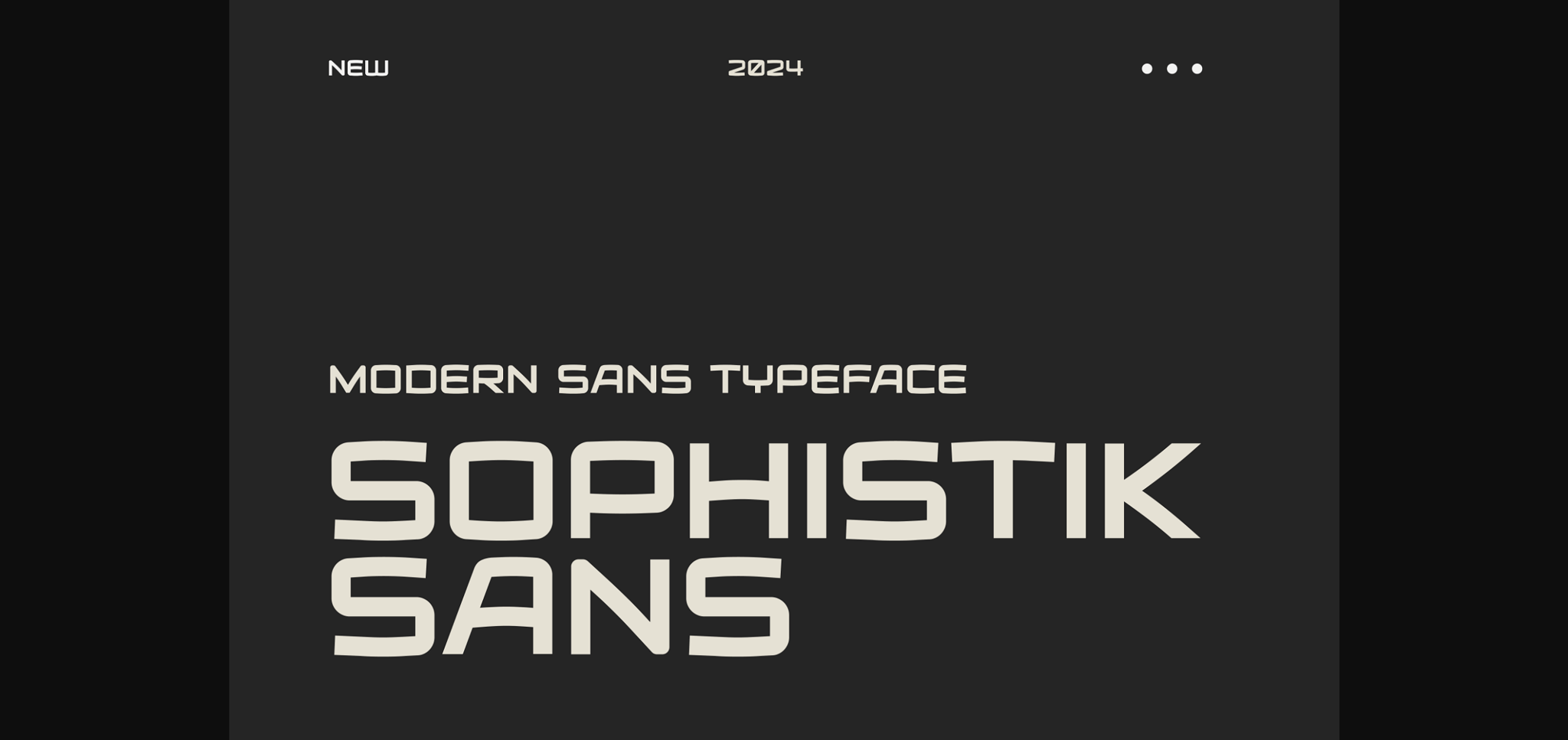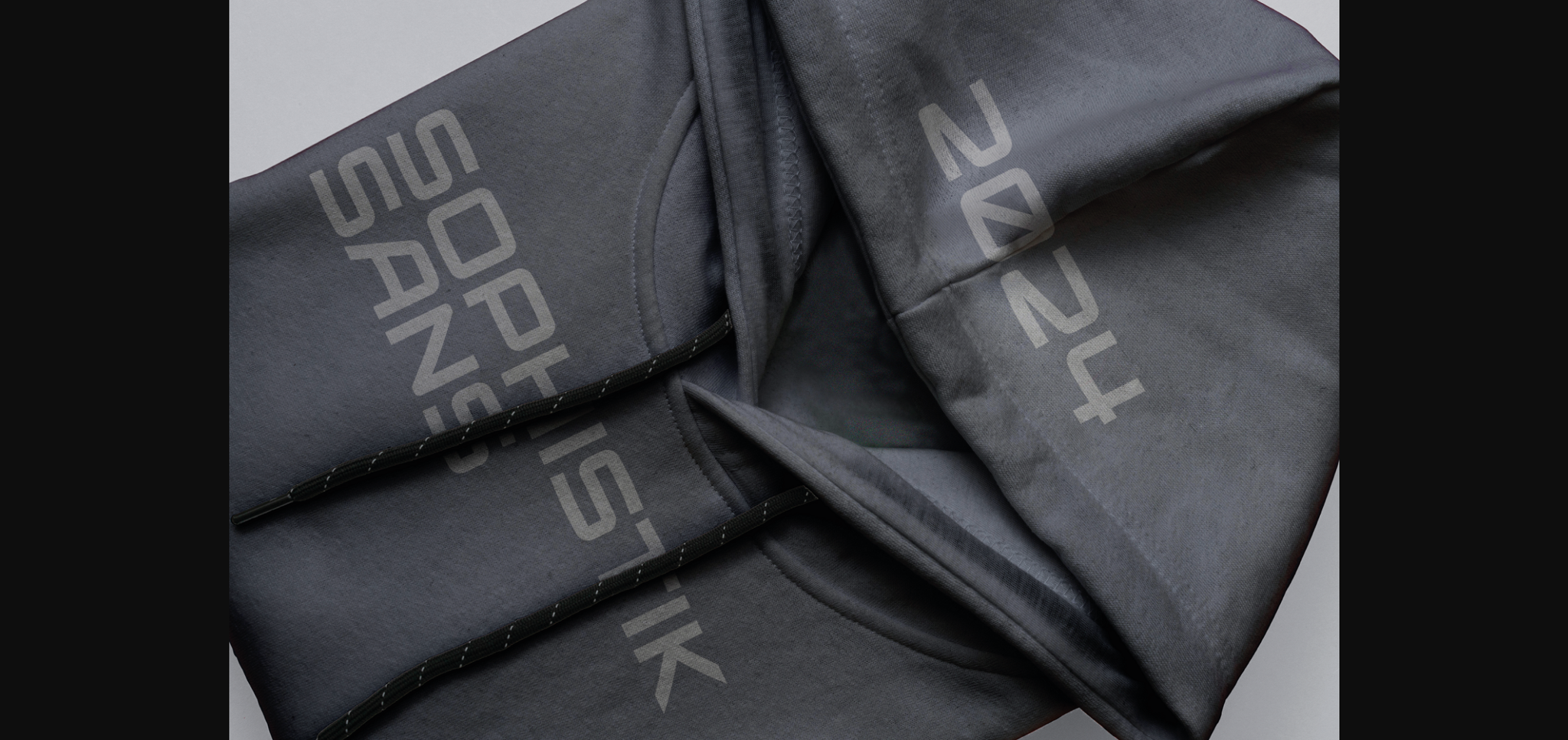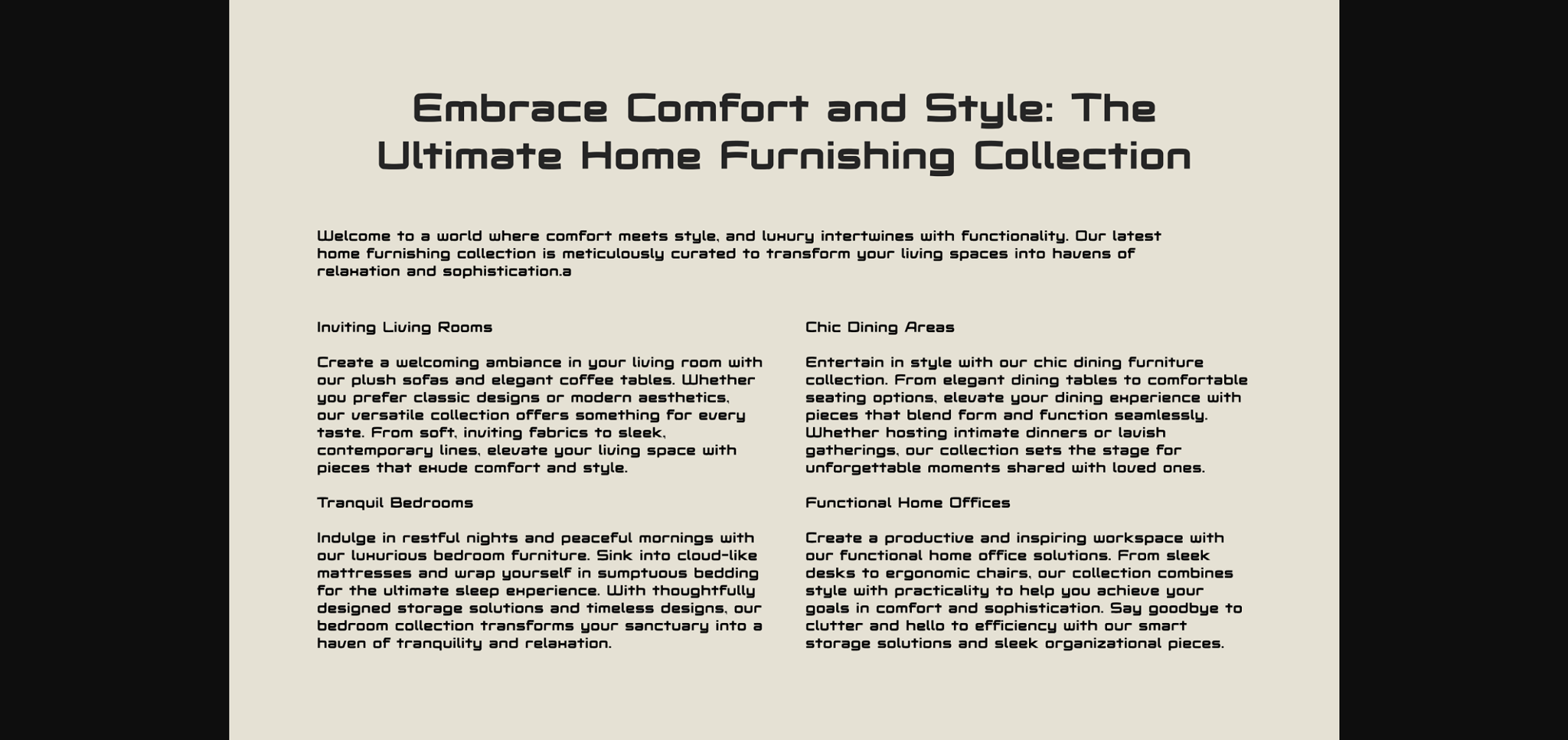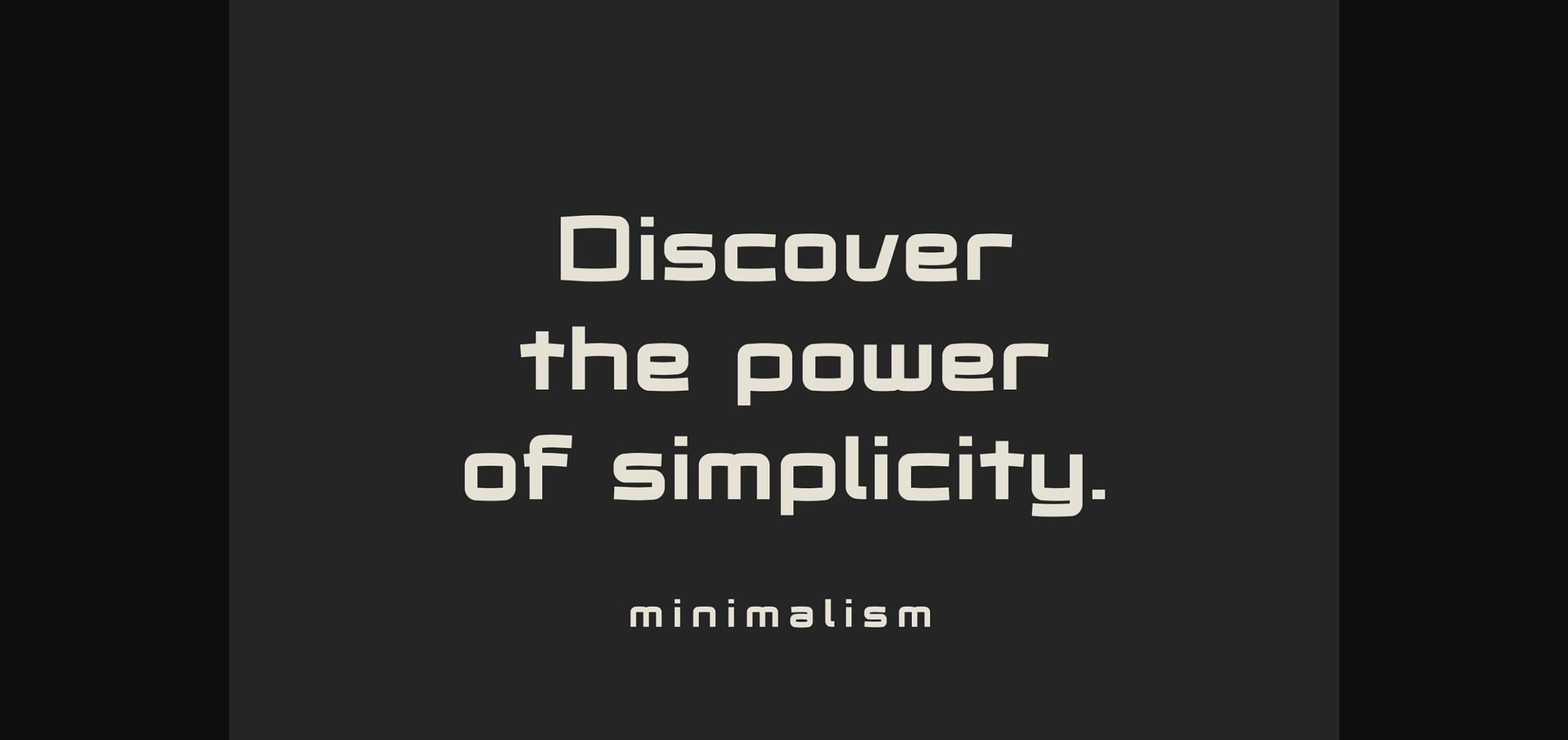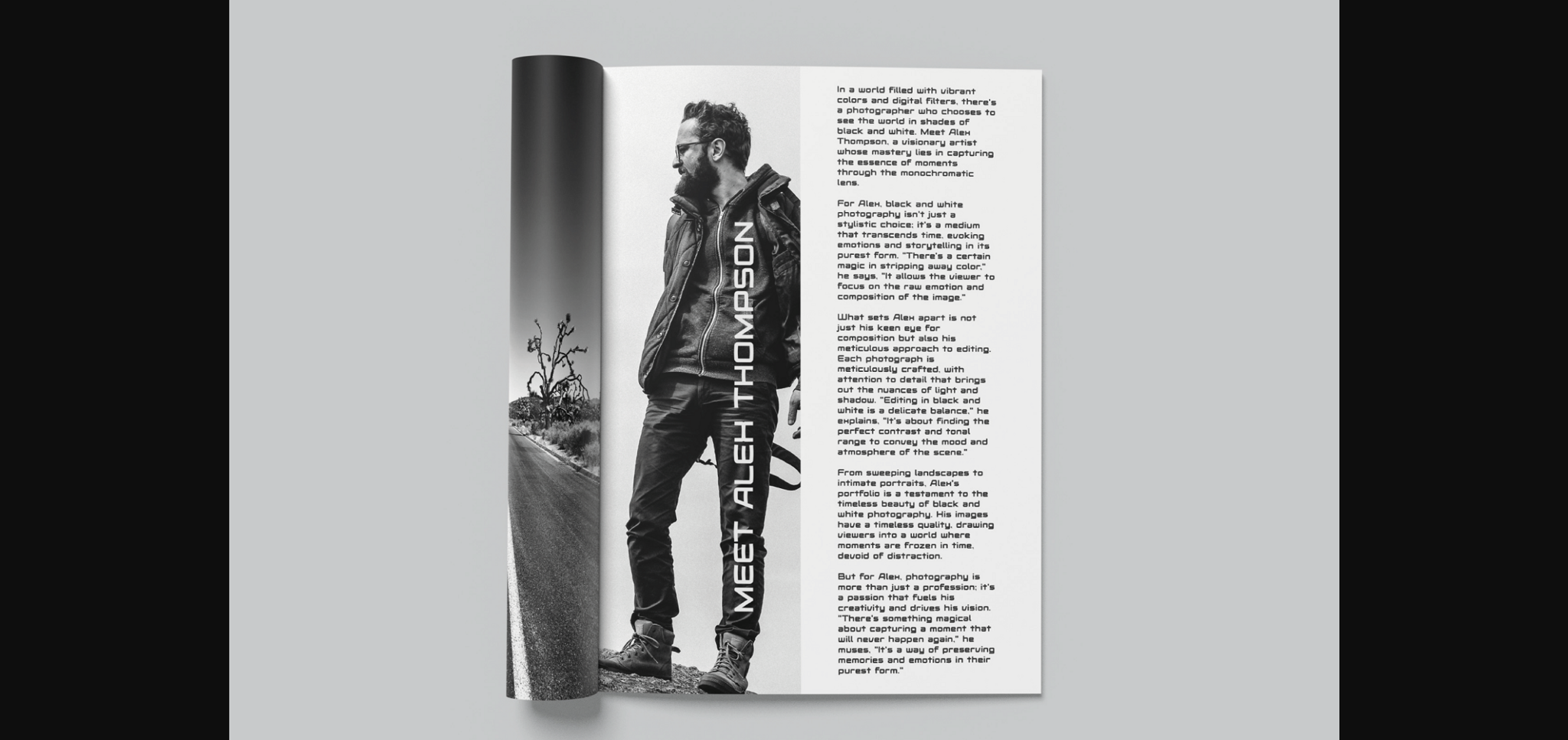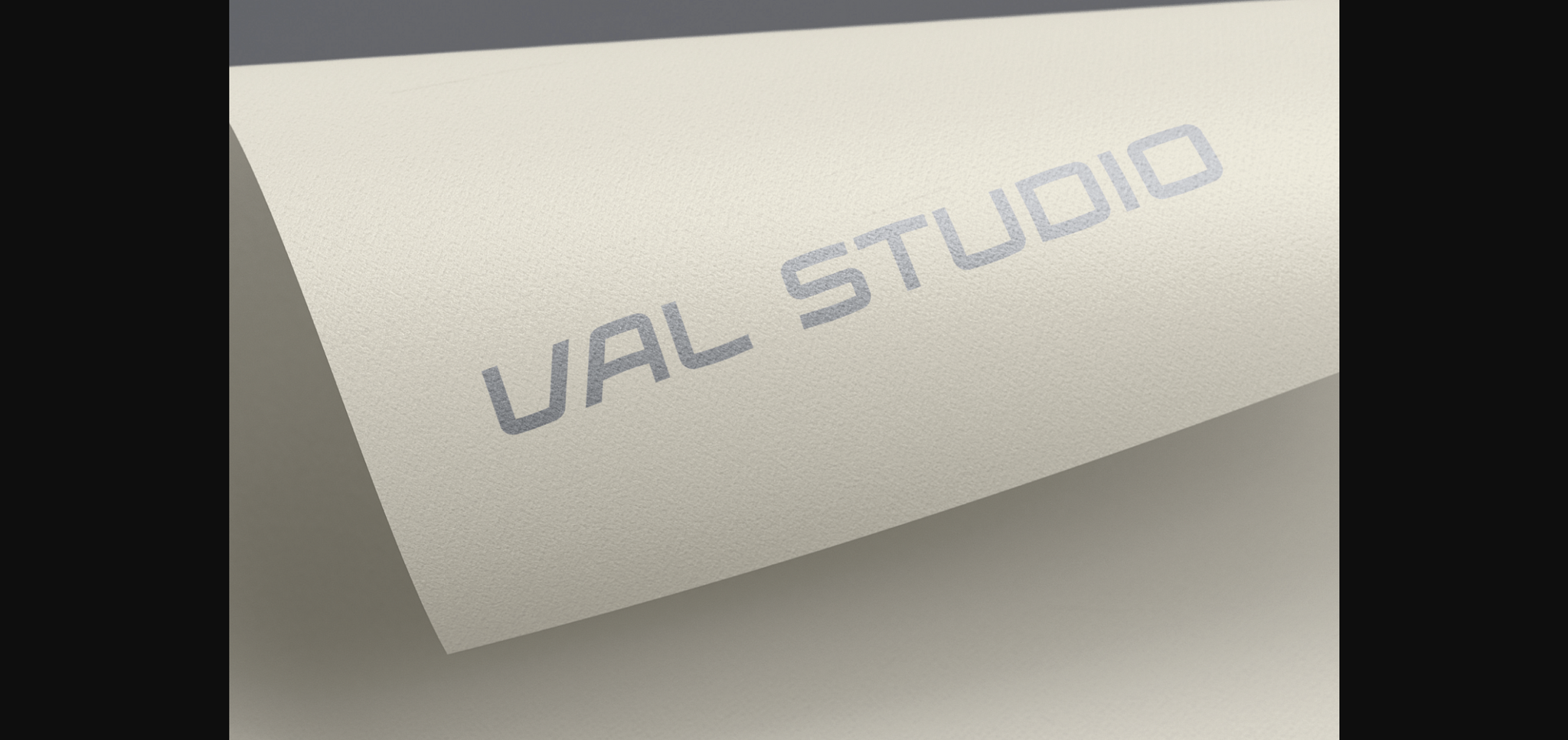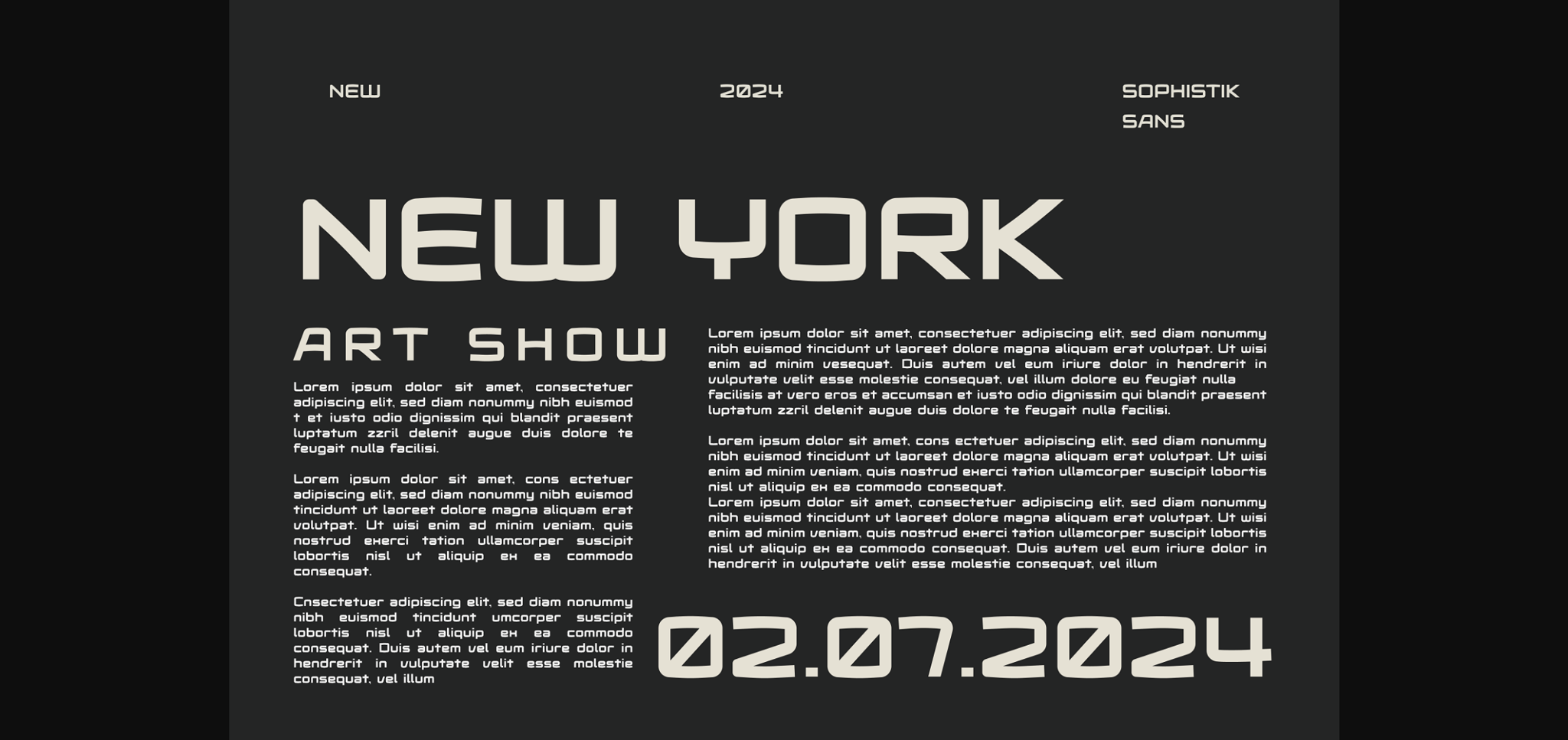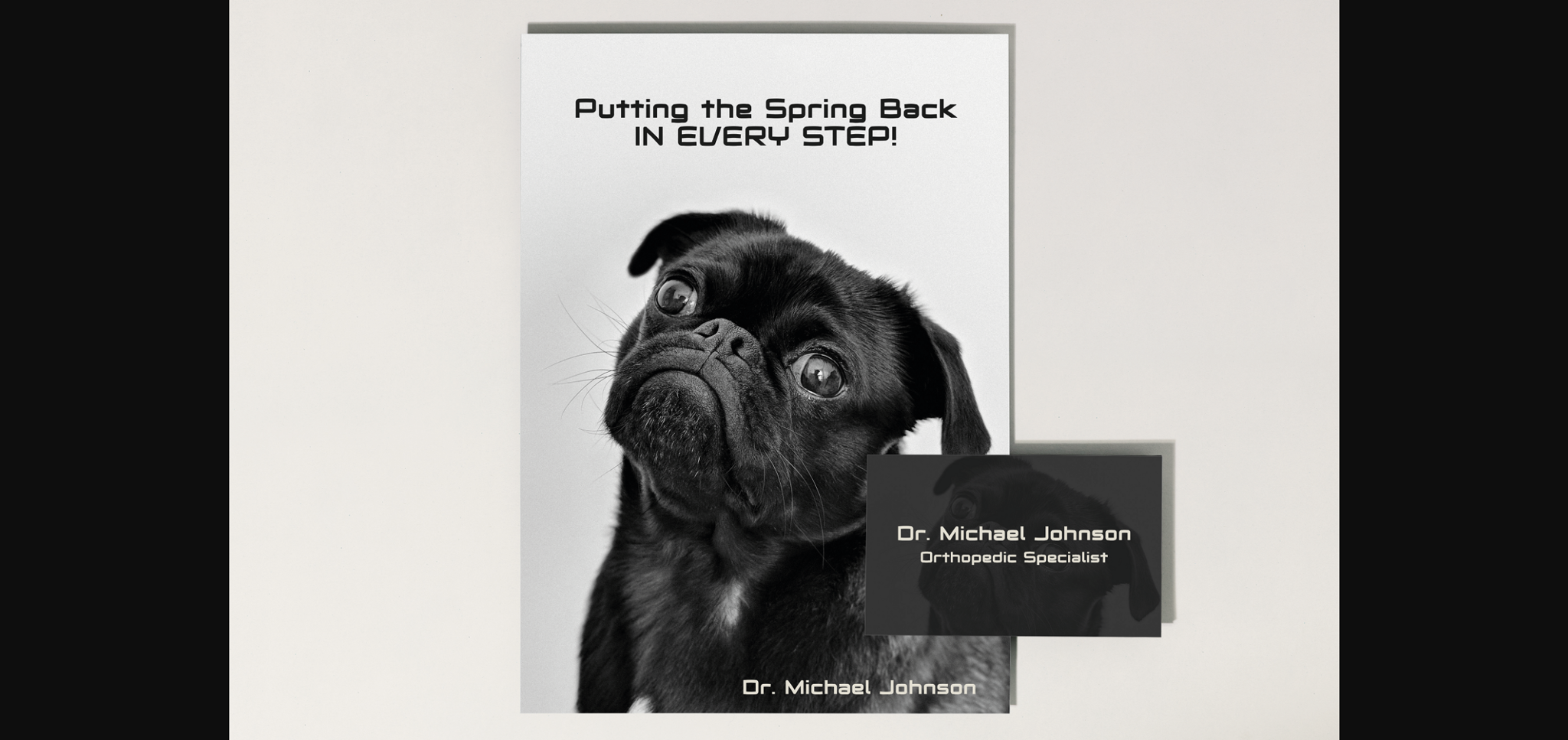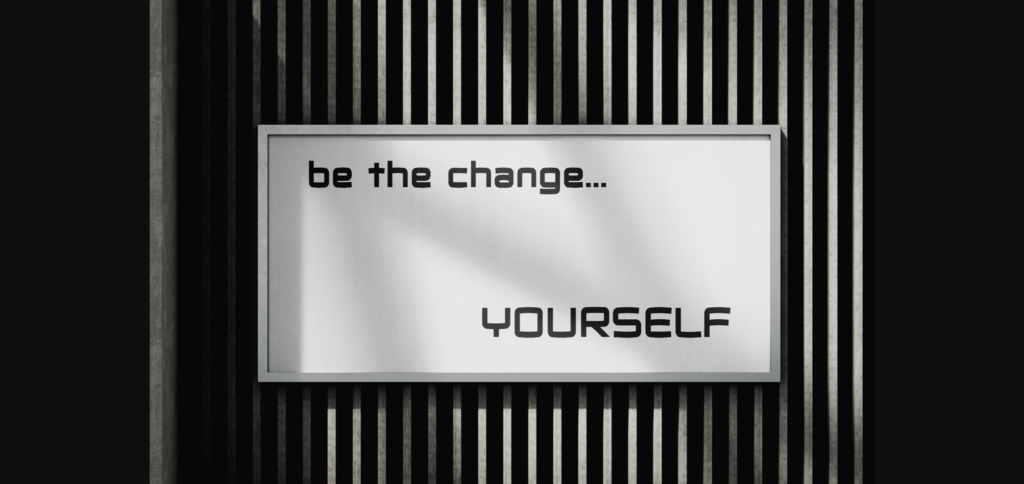
Sophistik Sans Font
About Sophistik Sans Font
Sophistik Sans is the epitome of modern elegance and simplicity, designed for those who appreciate clarity and beauty in typography. This sans serif typeface is crafted with a keen eye for detail, offering a clean, crisp, and fluid reading experience that elevates any design project. Its understated beauty lies in its minimalist approach, making it a versatile choice for a wide range of applications, from digital interfaces to printed materials.
The design of Sophistik Sans is informed by contemporary aesthetics, blending geometric precision with subtle humanistic touches. This creates a balance between form and function, ensuring that each character is both visually engaging and highly legible. The typeface comes in a variety of weights, from light to bold, each carefully designed to maintain consistency and readability across all sizes and mediums.
Sophistik Sans is more than just a font; it’s a statement of sophistication. Its sleek lines and open forms convey a sense of modernity and progress, making it an ideal choice for branding, editorial design, web design, and any project that demands a touch of sleek professionalism. The font’s clean geometry and absence of serifs give it a timeless appeal, ensuring that your designs remain fresh and relevant for years to come.
This typeface also includes a range of features such as ligatures, alternate characters, and broad language support, allowing designers to craft engaging and accessible content with ease. Whether you’re creating a minimalist website, a corporate brochure, or a stylish logo, Sophistik Sans provides the perfect foundation for conveying messages with clarity and elegance.
Embrace the modern charm of Sophistik Sans and let your designs stand out with its clean lines, beautiful form, and understated elegance. It’s not just a font; it’s a celebration of modern design at its most refined.